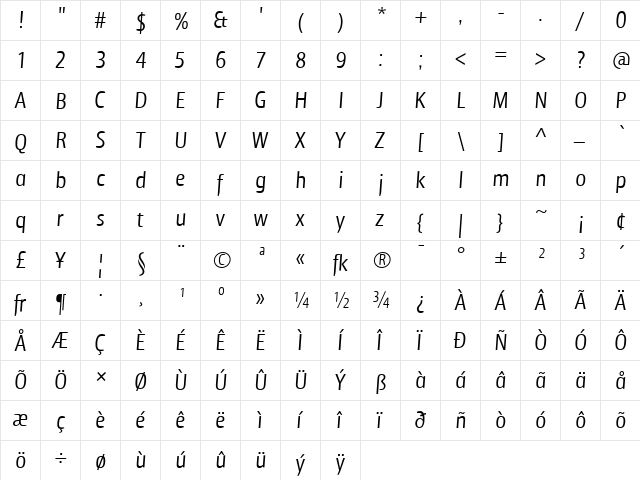
DioneItalic Regular
Design Context for DioneItalic Typeface
DioneItalic offers clean, dependable letterforms without strong stylistic allegiance, making it a practical choice for designers who need flexibility. Its italic angle brings a sense of urgency and motion to the letterforms.
Pro Tip: Try DioneItalic for annotation and caption copy alongside an upright companion — the contrast in angle creates a dynamic but ordered typographic system.